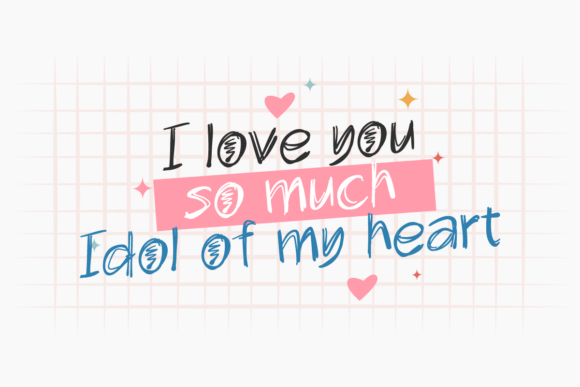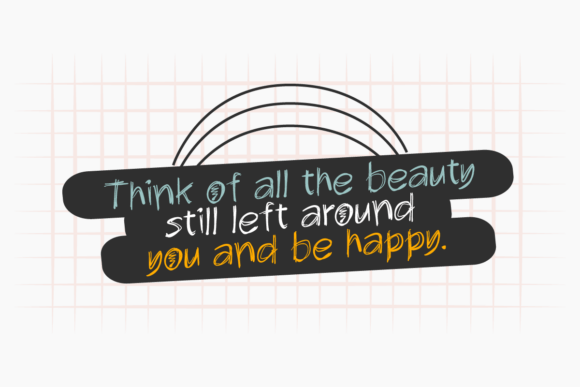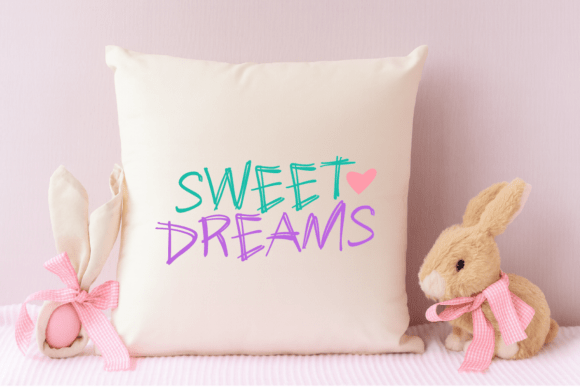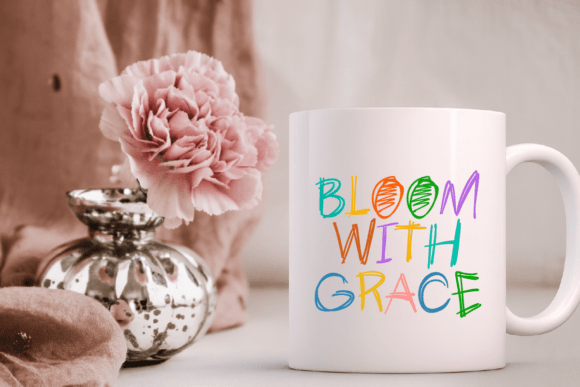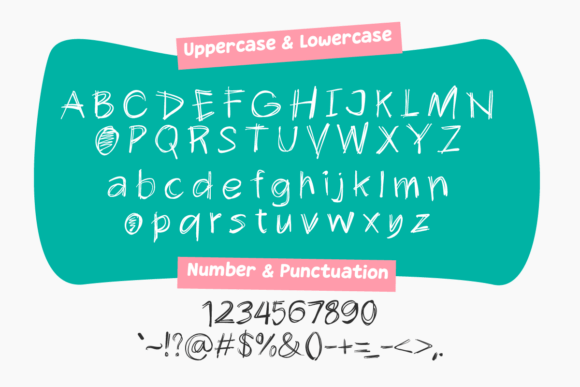
Introduction to Crayon World Font
Crayon World is a cheerful handwritten font inspired by the fun, colorful strokes of children’s crayon drawings.
With its cute irregular shapes, friendly curves, and joyful energy, this font instantly brings a warm, happy, and creative vibe to any project Perfect for crafters, designers, and DIY creators, Crayon World is an excellent choice for projects that need a playful, childlike, and heartfelt touch.
Key Features of Crayon World Font